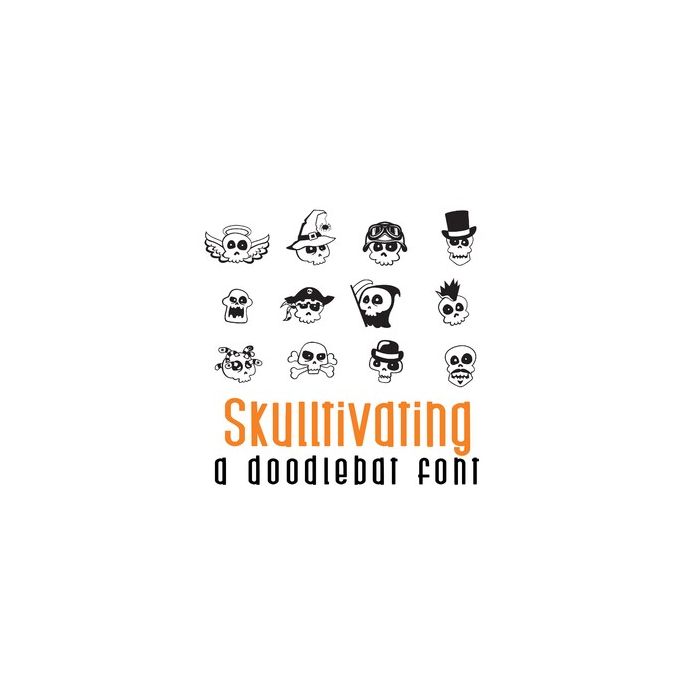
This fun doodlebat font features 26 fun skulls perfect for Halloween or any occastion. Use for cards, crafts, parties, gifts, decor, scrapbook pages, planner stickers and more!